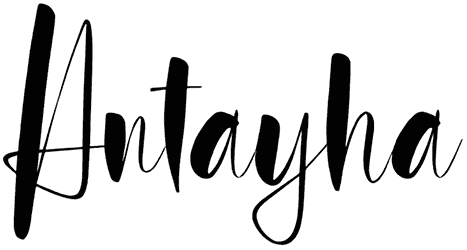
Antayha Font
If you are looking for an outward to give a distinct and pretty face to your creative design, you are in the right place. As a handwritten font, Antayha has unique and playful letters that can be interesting for various…
If you are looking for an outward to give a distinct and pretty face to your creative design, you are in the right place. As a handwritten font, Antayha has unique and playful letters that can be interesting for various projects. Set this modern script font on your upcoming designs, namely postcards, apparel, mugs, planners, or the like, and cause them a cheerful mood.